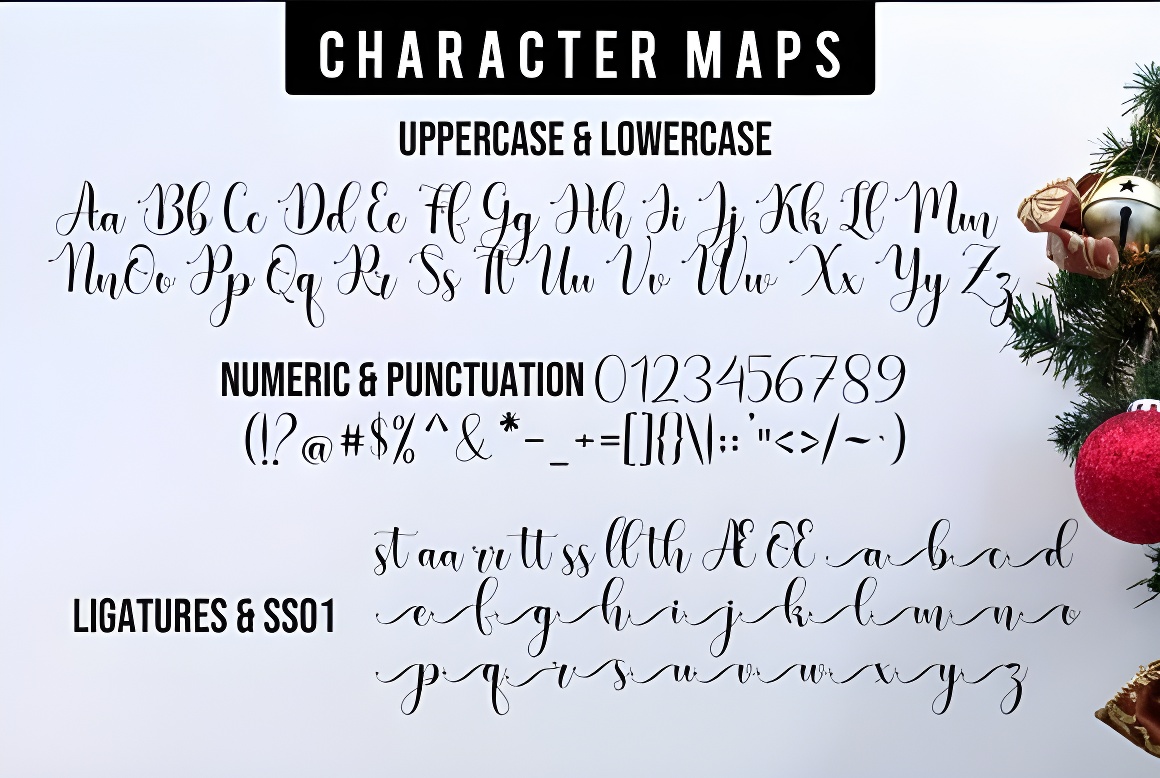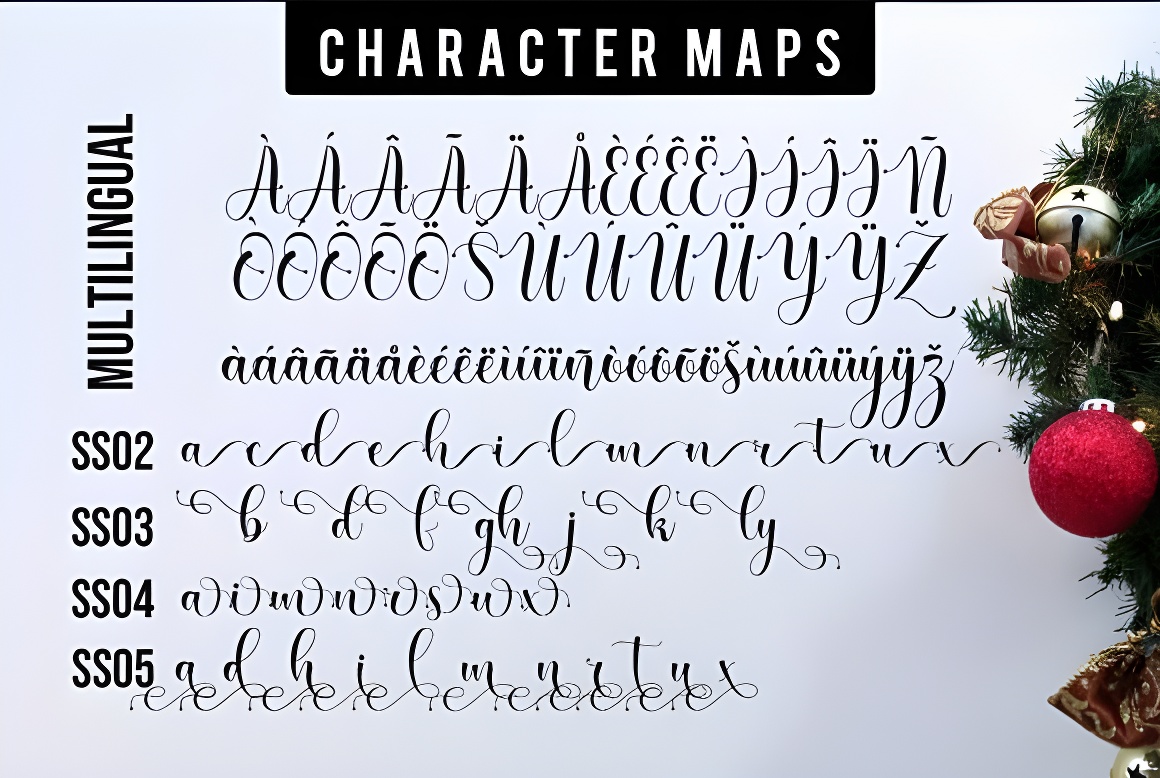
Christmas Bells Handwritten Script Font - Playful Holiday Display
Playful Christmas script font perfect for holiday designs. Great for crafters & designers using Silhouette Studio & Photoshop. Modern handwritten style by Kong Font Studio for cards, crafts & creative projects.